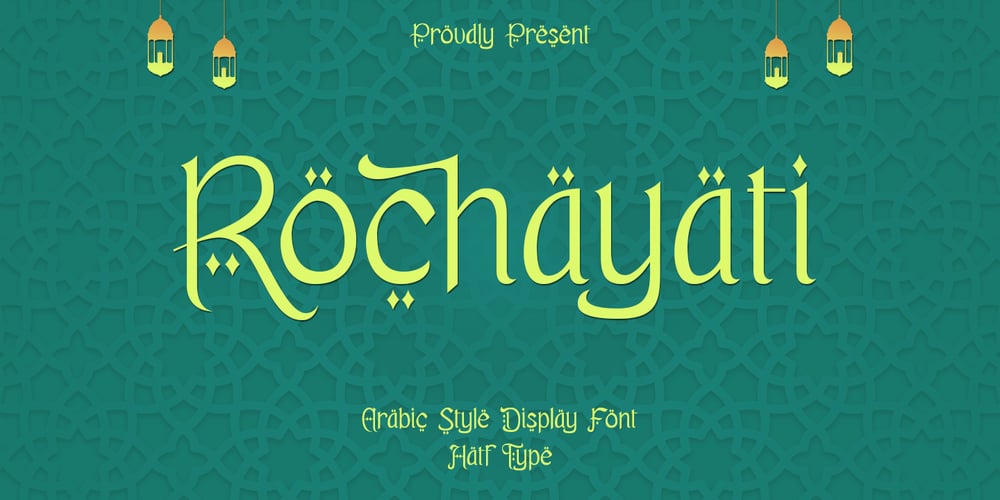
Rochayati
Rochayati font
Rochayati Font Family was designed by Asep Rendi and published by Hatftype. Rochayati contains 1 styles and family package options. Experience the perfect harmony of tradition meeting modernity through Rochayati a meticulously crafted Arabic style display font. Echoing the sophistication of Arabic calligraphy, Rochayati emanates an exclusive allure, beautifully incorporating smooth, flowing Arabic alphabets with a modern twist. Each artistic stroke showcases the refined complexity and majestic beauty of the Arabic script, naturally enabling decorative flourishes that enrich its overall eye-catching appeal. Set within the quintessential curves and intersections of Arabic design, Rochayati orchestrates an intriguing visual performance, infusing your text with a seductively exotic aura. Every individual letter unravels like a masterpiece, etched accurately to reflect the intrinsic beauty of each symbol. If you’re a designer seeking to introduce an Arabic aesthetic into your work, Rochayati with its beautifully designed style, is a magical selection. It gifts an uncommon visual vocabulary capable of transforming mundane design into something extraordinary, imbuing it with a distinctively captivating Arabic sophistication.